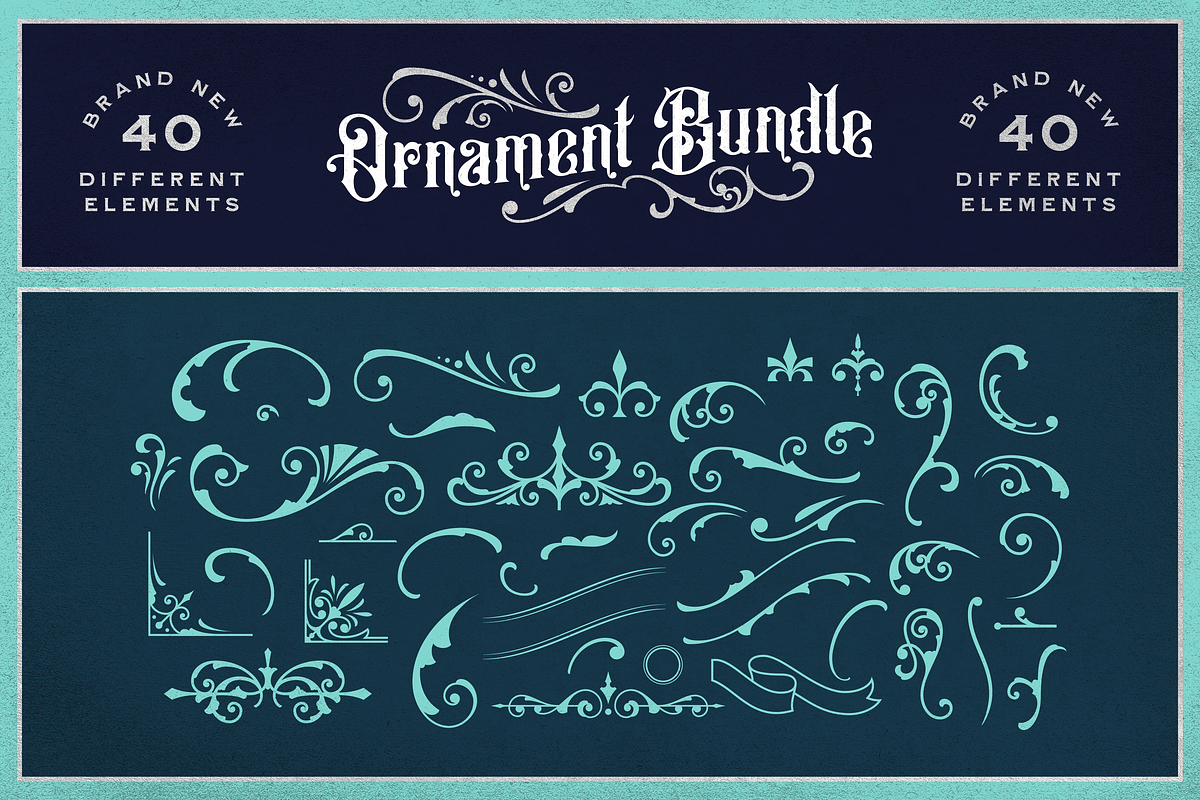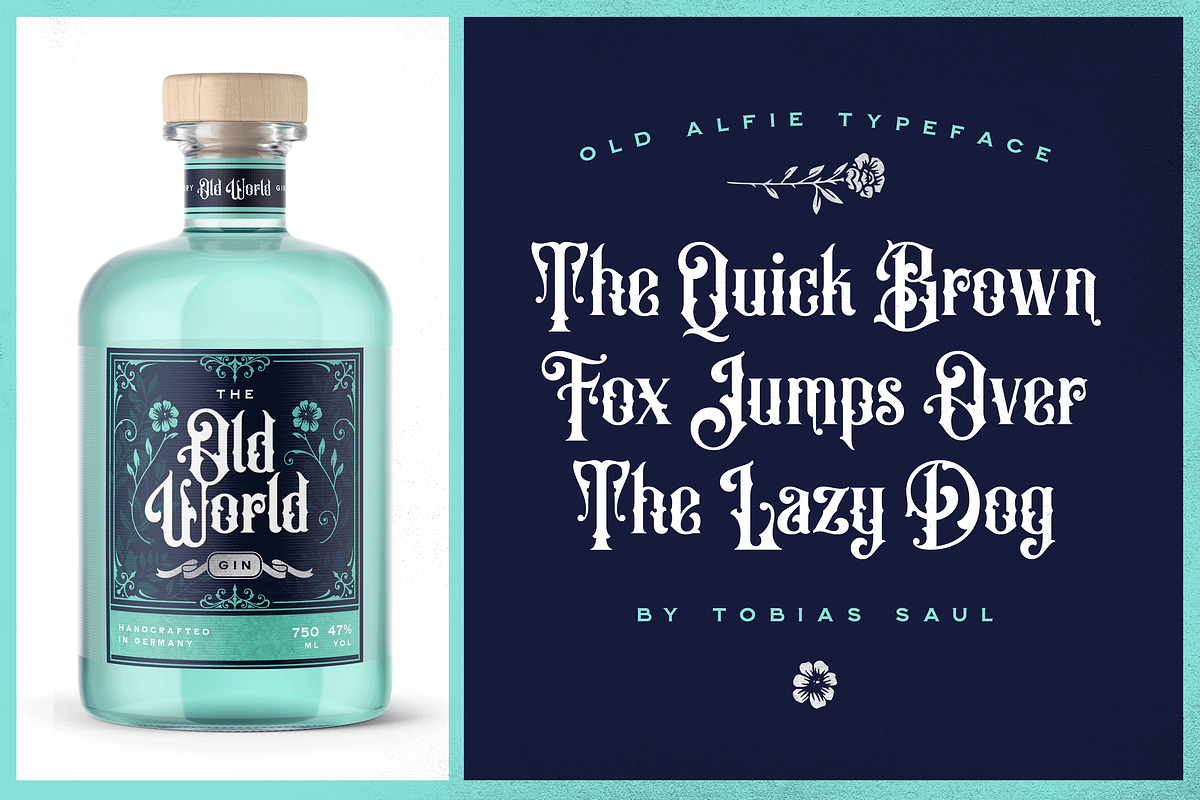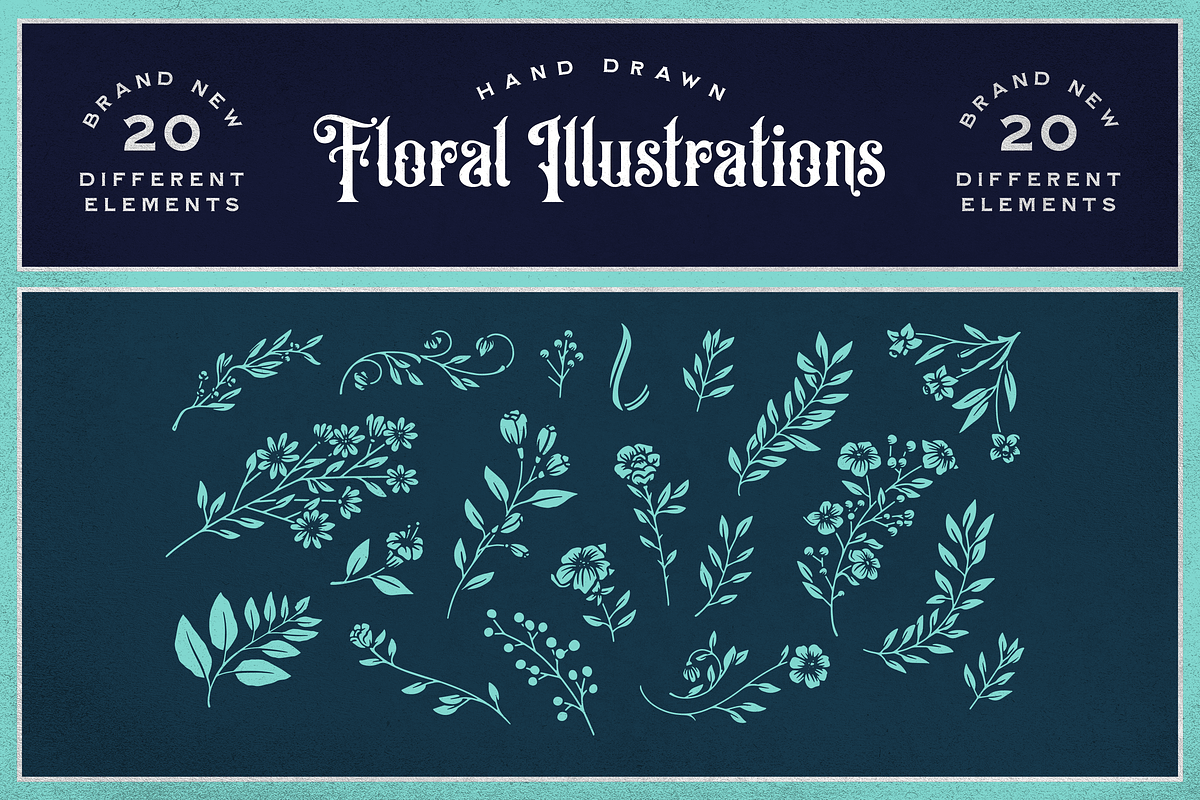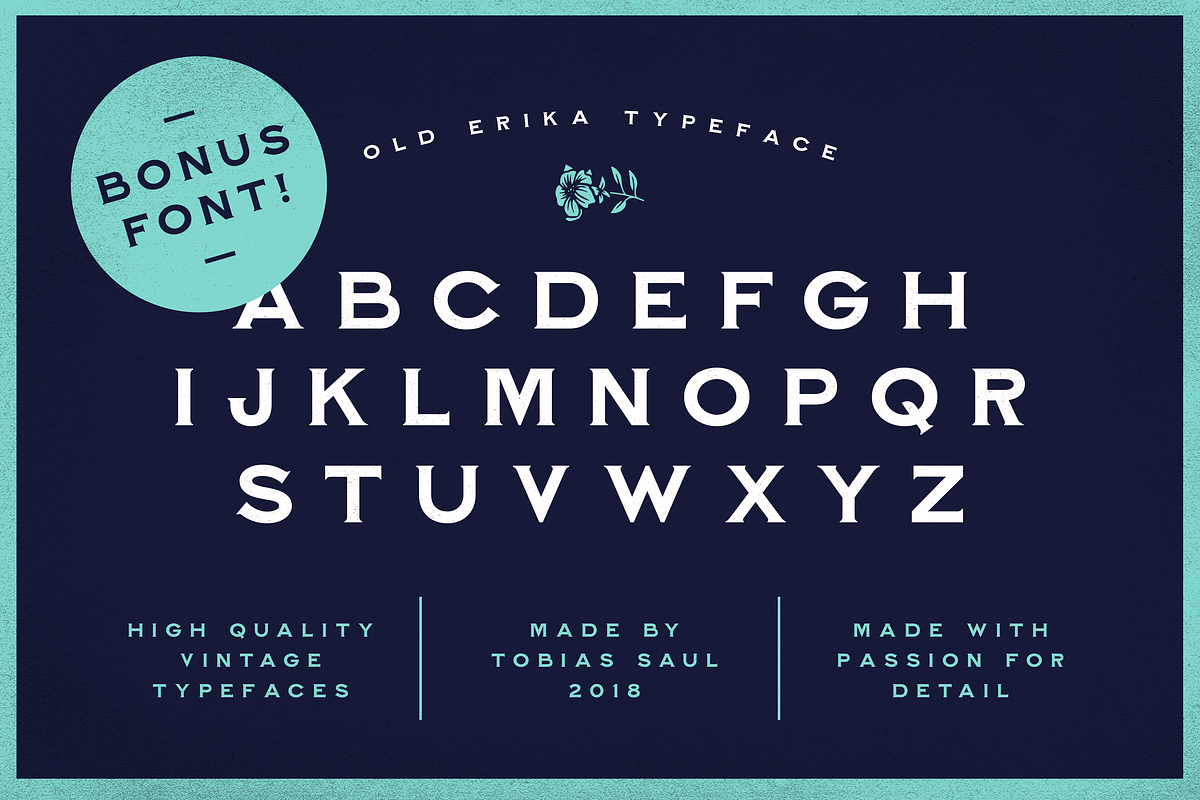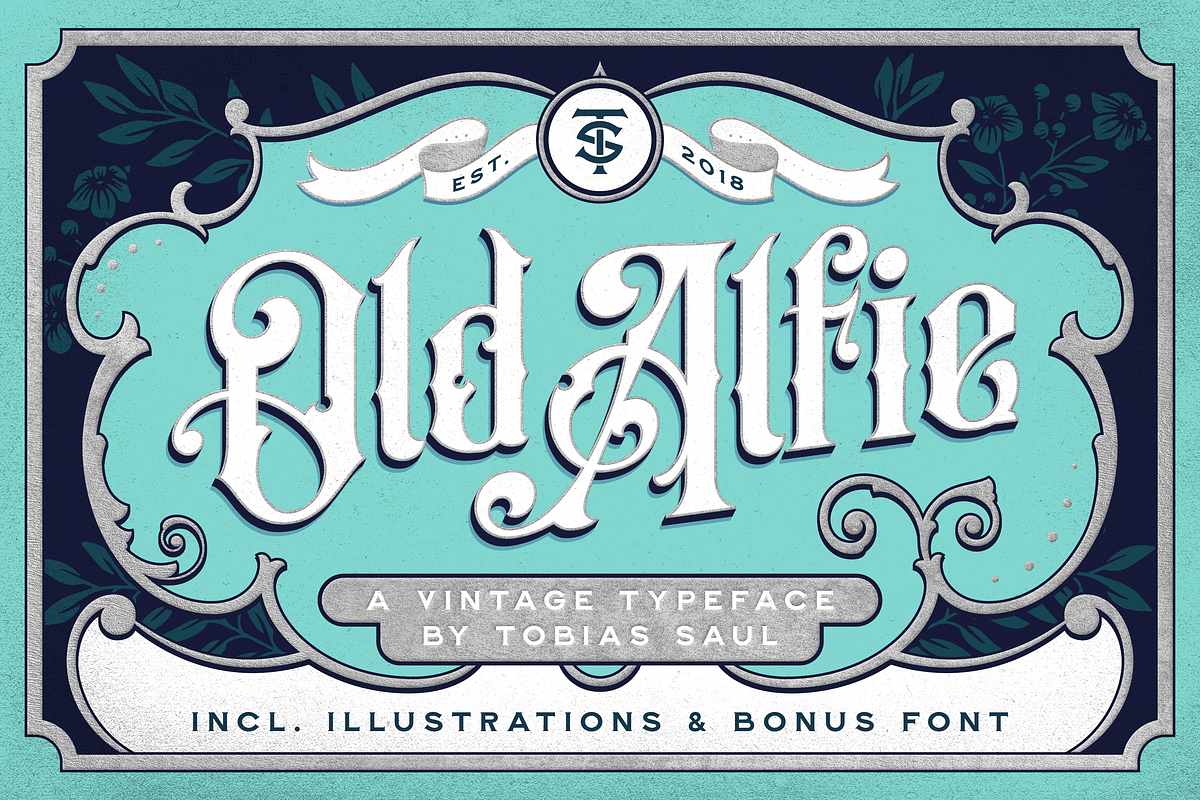
Old Alfie Font Duo
Old Alfie & Old Erika is a vintage font duo with a big set of ornaments and floral illustrations!
The main Vintage Font Old Alfie is inspired by embellished vintage book covers and packaging design. It has a strong victorian vibe, but with a modern twist. The second font Old Erika is a much simpler serif font and works great in combination with Alfie! Alone or in combination, both fonts work great for logo, packaging or book cover design. But that’s not all! Furthermore the product contains a set of ornaments with 40 elements and a collection of 20 hand drawn floral illustrations.